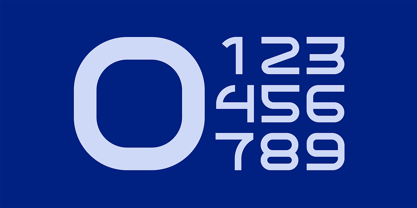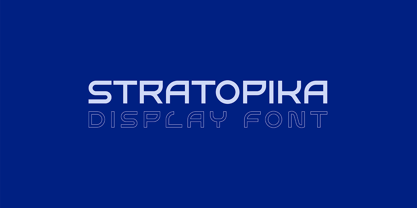
Stratopika
The Stratopika Font Family was designed by Ole-Jørgen Ramstad and published by OJR Design. Stratopika contains 6 styles and family package options. More about this family
Stratopika is a typeface inspired by the early science fiction movies and architecture. The font geometric shapes makes it useful in both poster and logo creations. Stratopika is mainly designed to be a display font, but it can also be used as quantity text.